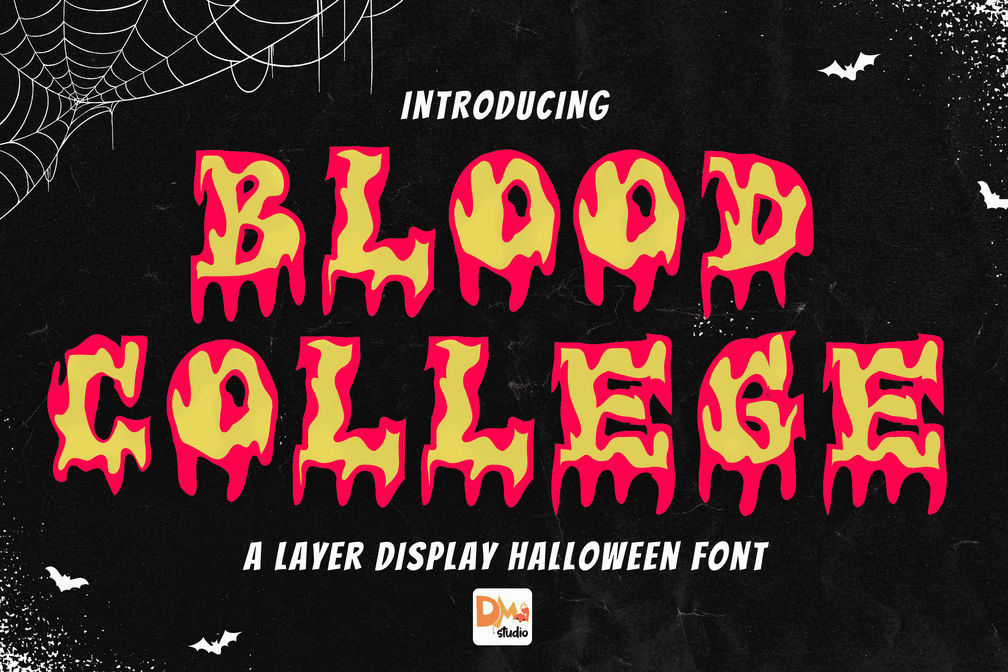
Blood College
Blood College – Bold & Spooky Collegiate Font
Blood College is a striking display font that combines a classic collegiate style with eerie, horror-inspired elements. Featuring bold, varsity-style letterforms with dripping and edgy details, this typeface is perfect for Halloween designs, horror movie titles, spooky merchandise, gothic branding, and themed event posters. Its powerful and haunting aesthetic ensures a chilling yet stylish look for any project.
• Horror-Inspired Collegiate Design: Classic varsity-style letters infused with spooky, dripping effects.
• Perfect for Halloween & Horror Projects: Ideal for posters, apparel, branding, haunted house flyers, and eerie decorations.
• Bold & Dramatic Aesthetic: Strong, eye-catching letterforms with a gothic and thriller vibe.